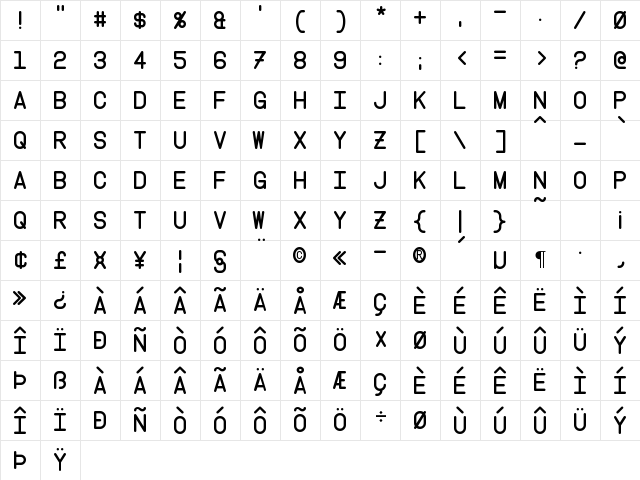
Instruction Regular
| Foundry | Pixel Sagas |
| Designer | Neale Davidson |
Design Context for Instruction Typeface
Instruction offers clean, dependable letterforms without strong stylistic allegiance, making it a practical choice for designers who need flexibility.